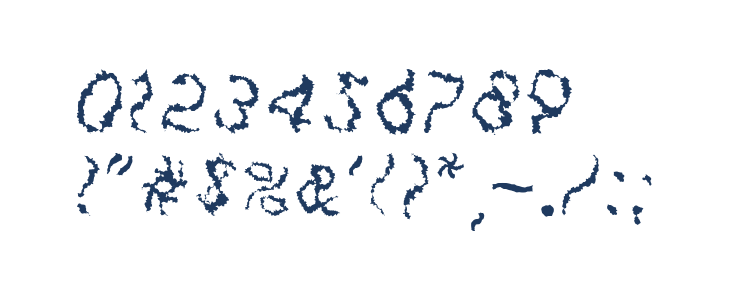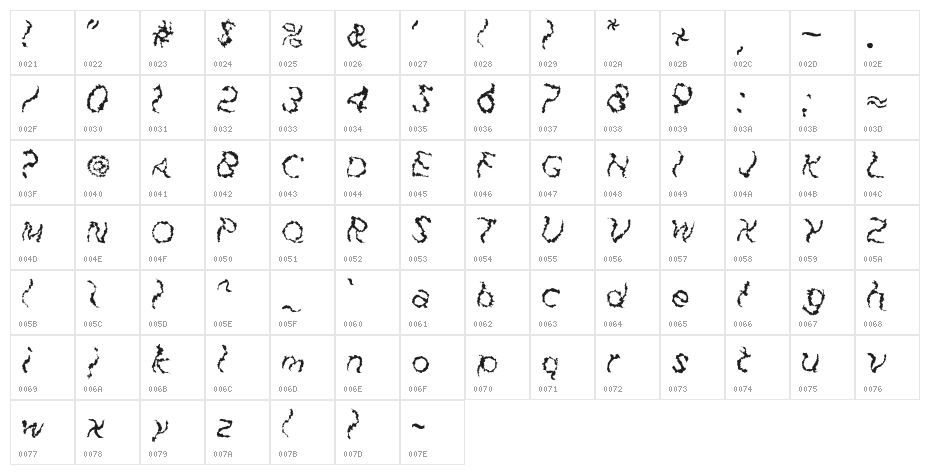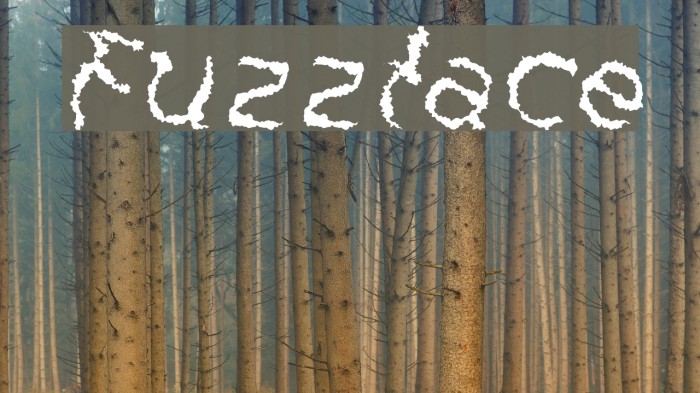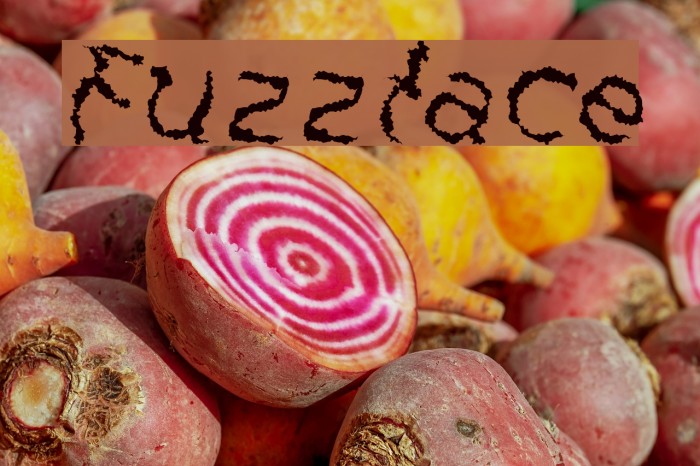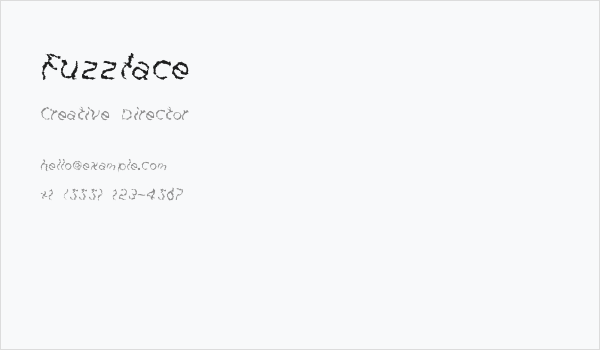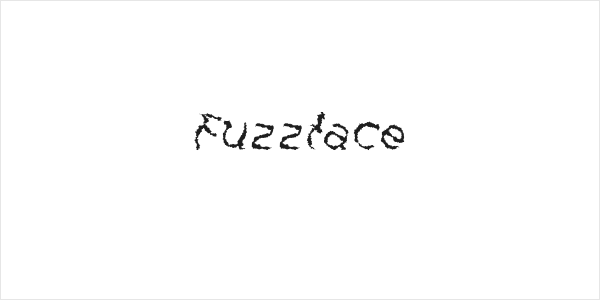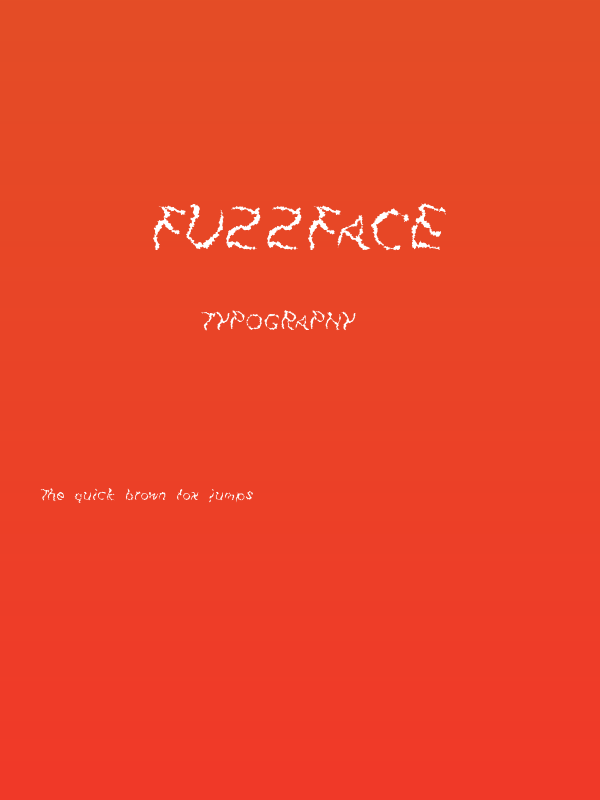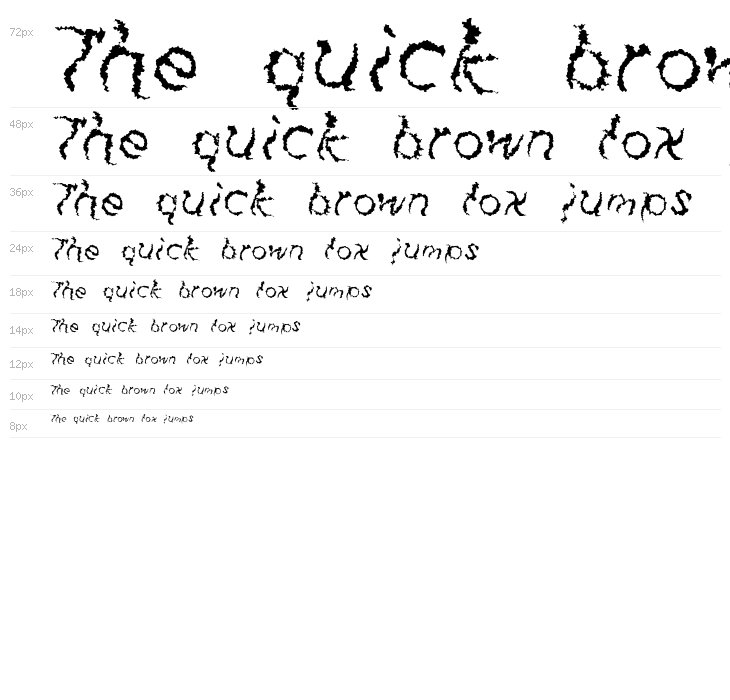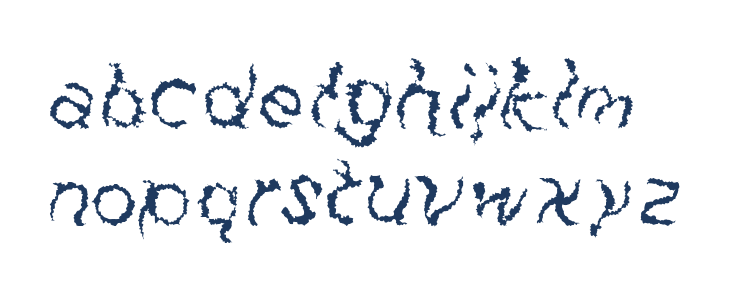
Fuzzface Font
Fuzzface Description
This font features a highly distinctive and textured appearance, reminiscent of organic or natural forms. The edges of each character are irregular and jagged, giving the impression of being eroded or fuzzy. This unique style creates a sense of movement and dynamism, making it stand out in any design. The uppercase and lowercase letters maintain a consistent style, with the same rugged texture applied throughout. Numbers and special characters are equally stylized, ensuring a cohesive look across all text elements. This font is ideal for projects that require a bold, artistic statement.
| Proposed Projects | Ideal for artistic posters, album covers, or any design needing a bold, organic touch. |